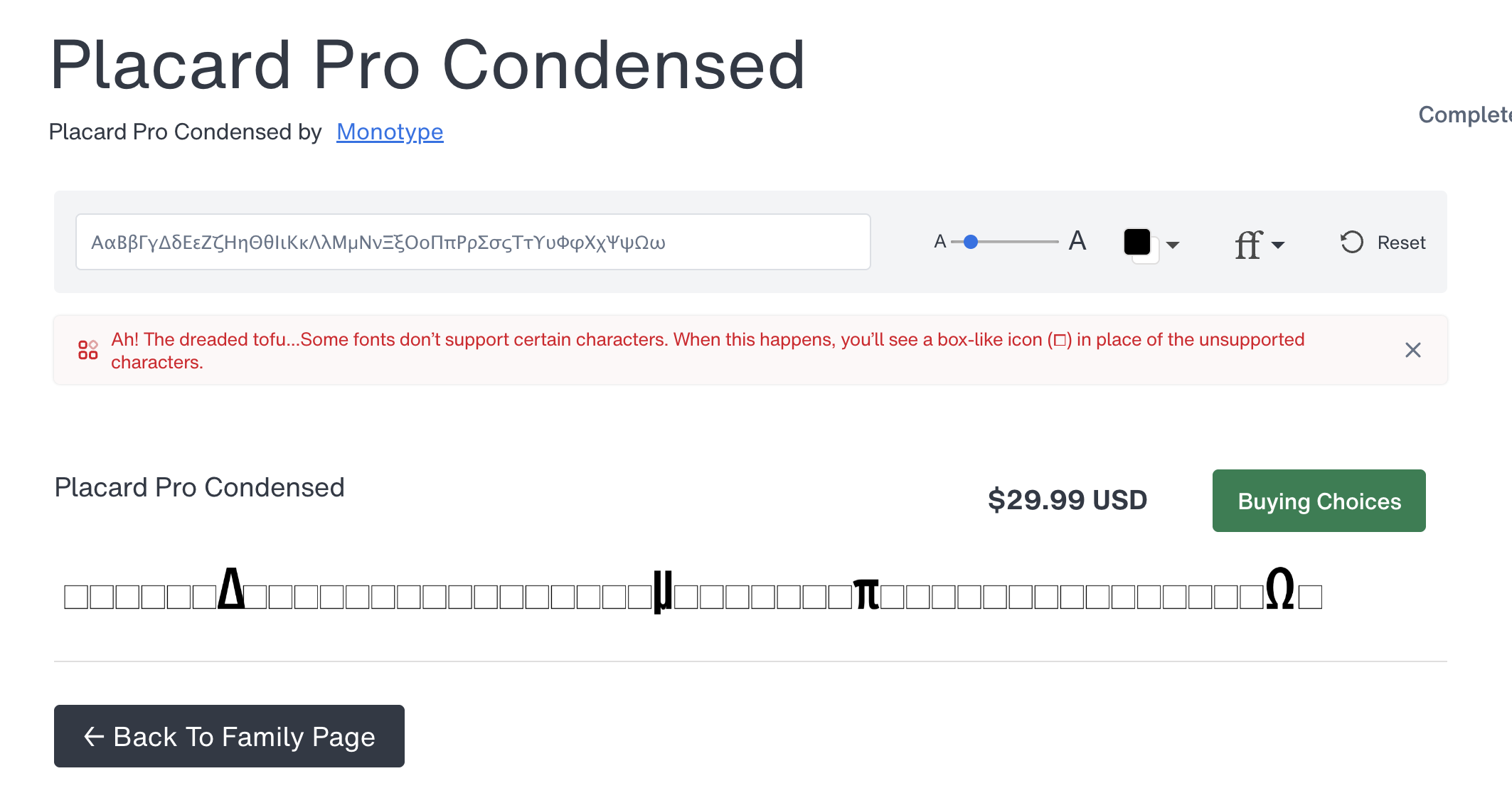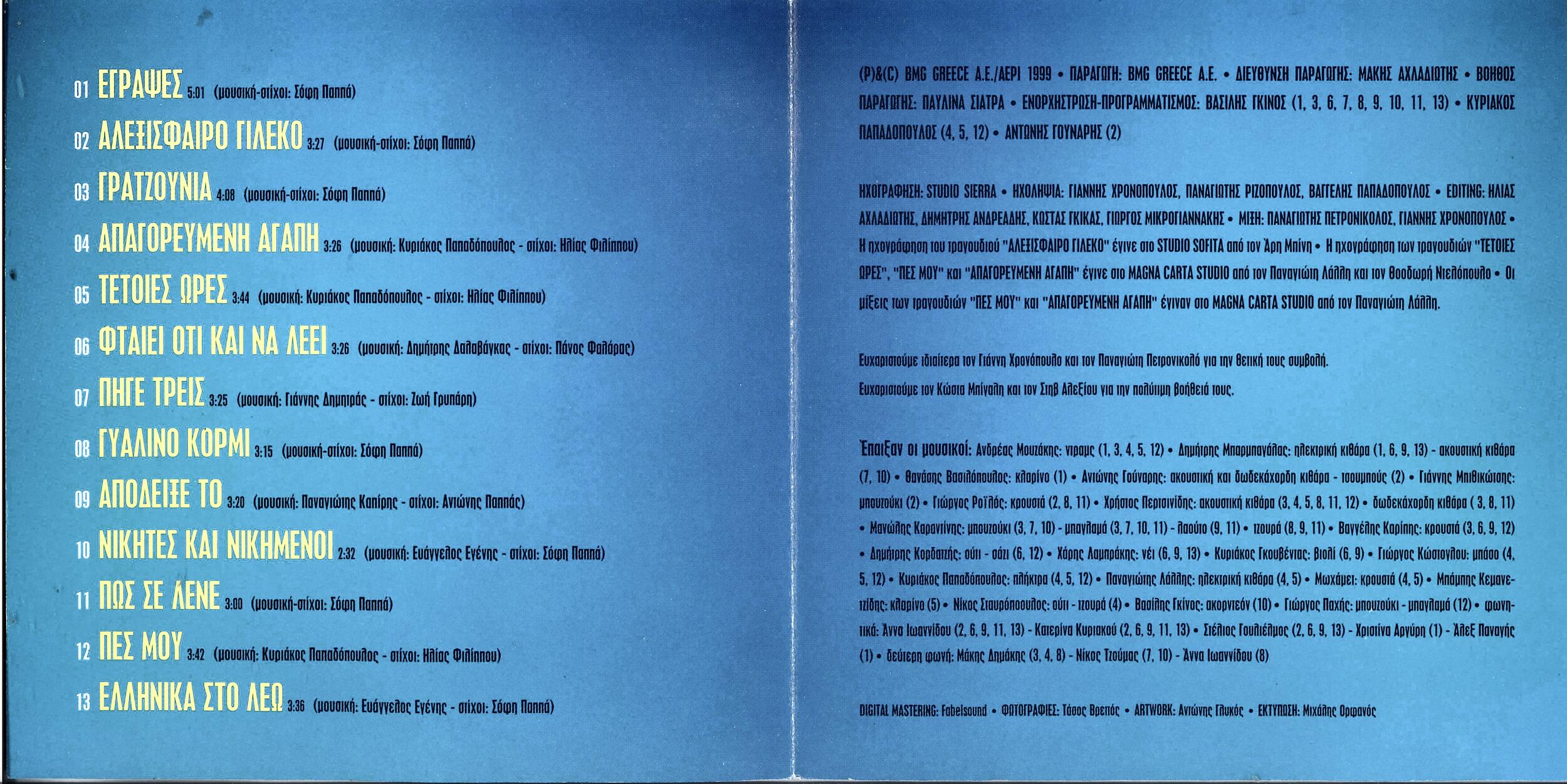
Identification of font used on Album cover - Λένα Παπαδοπούλου – Έγραψες (CD, Album) 1999 RCA,BMG (VG+ / VG+)
Need help in identifying the exact font used on the album cover of Λένα Παπαδοπούλου – Έγραψες (CD, Album) 1999 RCA,BMG (VG+ / VG+).
renditionDownload-1.jpgIf the exact font cannot be identified, then the closest match might also work with Greek support.
The most similar I can find is Placard.
Unfortunately, Placard does not seem to have support for the Greek Characters - ΑαΒβΓγΔδΕεΖζΗηΘθΙιΚκΛλΜμΝνΞξΟοΠπΡρΣσςΤτΥυΦφΧχΨψΩω
which is the main requirement right now. ☹️
I cannot find a match either, but you could obtain a similar appearance (albeit with different details in letters like |Μ|Ξ|Ψ|, etc.) with the right width of DIN Max.